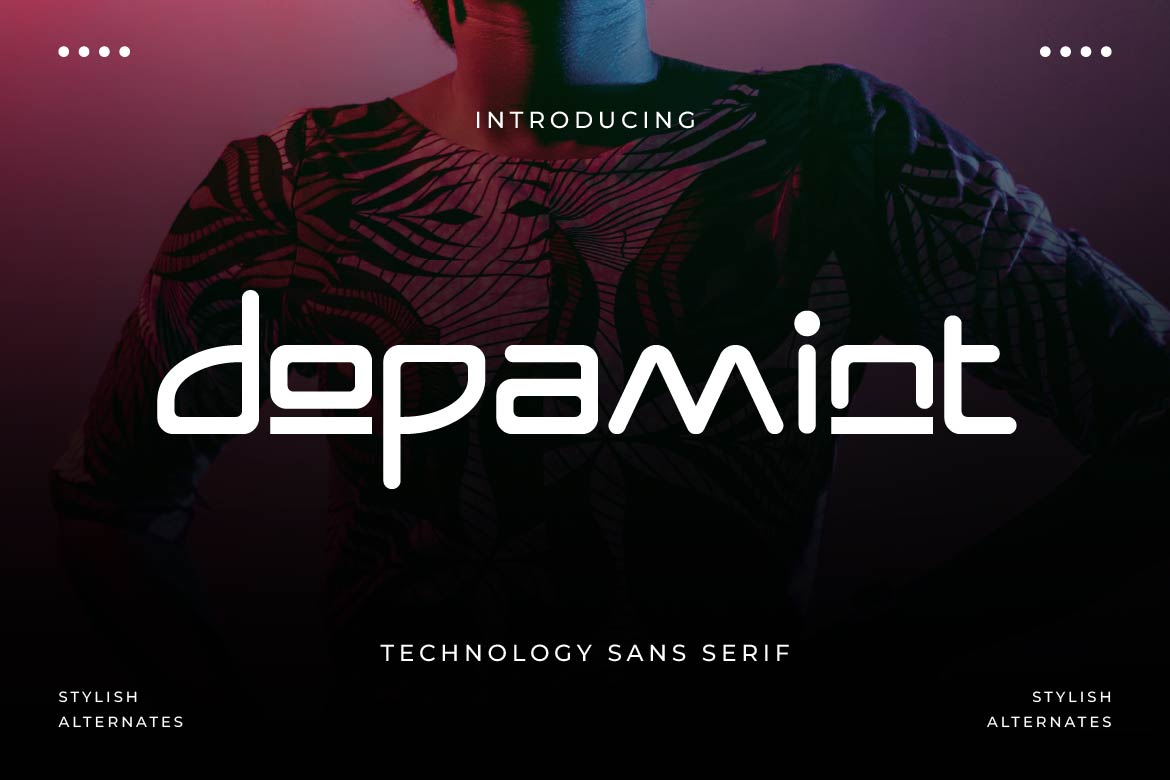
Dopamint – Minimal Technology Typeface
Dopamint is a modern technology sans serif built for a world where digital experiences are becoming the new visual language.
Clean, precise, and distinctly contemporary, Dopamint combines streamlined letterforms with subtle futuristic character to create a typeface that feels intelligent without becoming overly sci-fi. Its balanced construction makes it equally effective for bold headlines, brand names, interfaces, and everyday digital communication.
Designed for AI products, software startups, SaaS platforms, fintech brands, mobile apps, websites, gaming projects, dashboards, and digital products, Dopamint brings a sense of clarity and technological confidence to every application.
Its modern proportions allow it to move effortlessly between a startup landing page, an app interface, a technology logo, a product presentation, or a futuristic campaign. The result is a typeface that feels current today while remaining flexible enough for the evolving visual language of tomorrow.
Dopamint isn’t just a technology font—it’s a clean digital voice for brands moving forward.